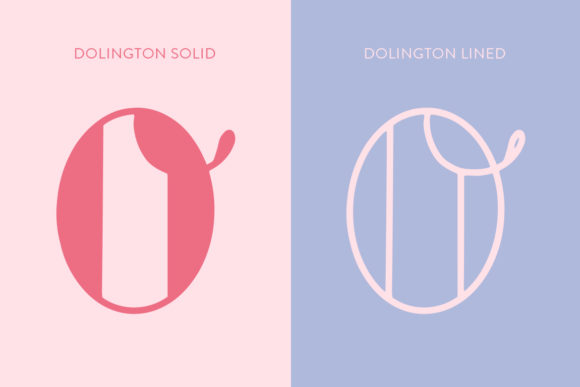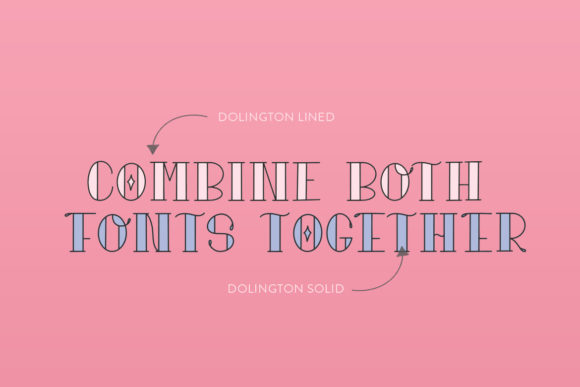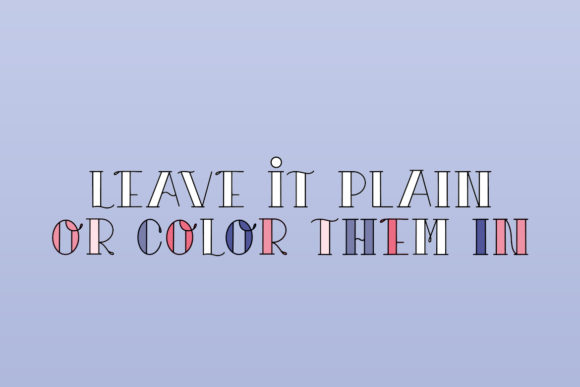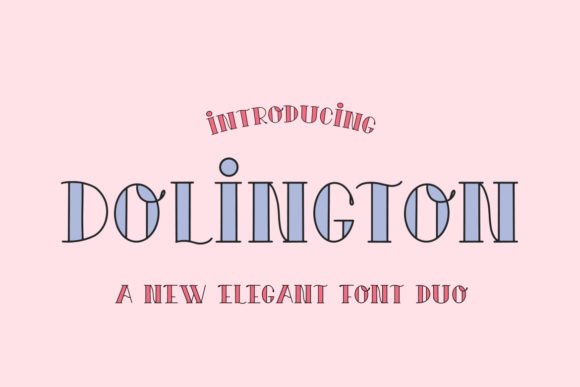
Introduction to Dolington Font
Dolington is an incredibly unique serif font.
It feels playfully nostalgic and delivers an incredible vintage aesthetic Use this serif font to add that special retro touch to any design idea you can think of.